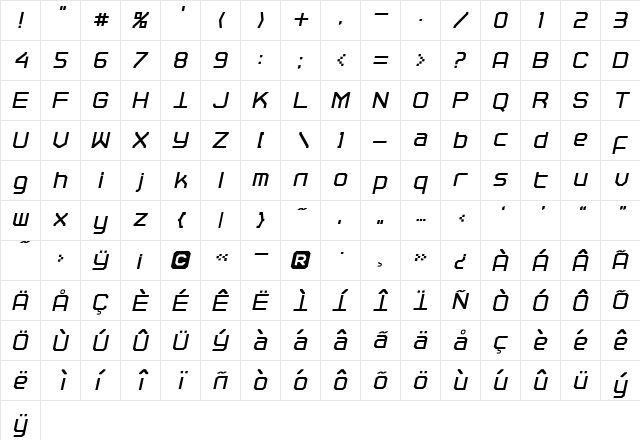
TRACEROUTE Italic
Designeryol
Design Context for TRACEROUTE Typeface
TRACEROUTE is a composed and adaptable typeface that performs quietly and consistently across a wide range of design contexts. The dynamic lean of this cut emphasises speed and emphasis in any layout.
Pro Tip: Try TRACEROUTE for annotation and caption copy alongside an upright companion — the contrast in angle creates a dynamic but ordered typographic system.